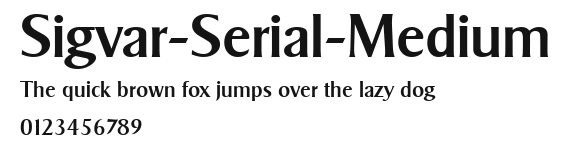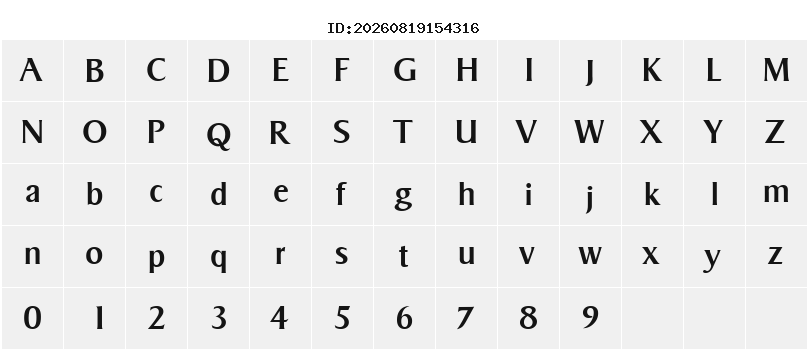
About Sigvar-Serial-Medium.ttf
Sigvar-Serial-Medium.ttf is a modern, elegant sans-serif font designed for ultimate readability and visual harmony. Perfect for branding, headlines, web design, and print materials.